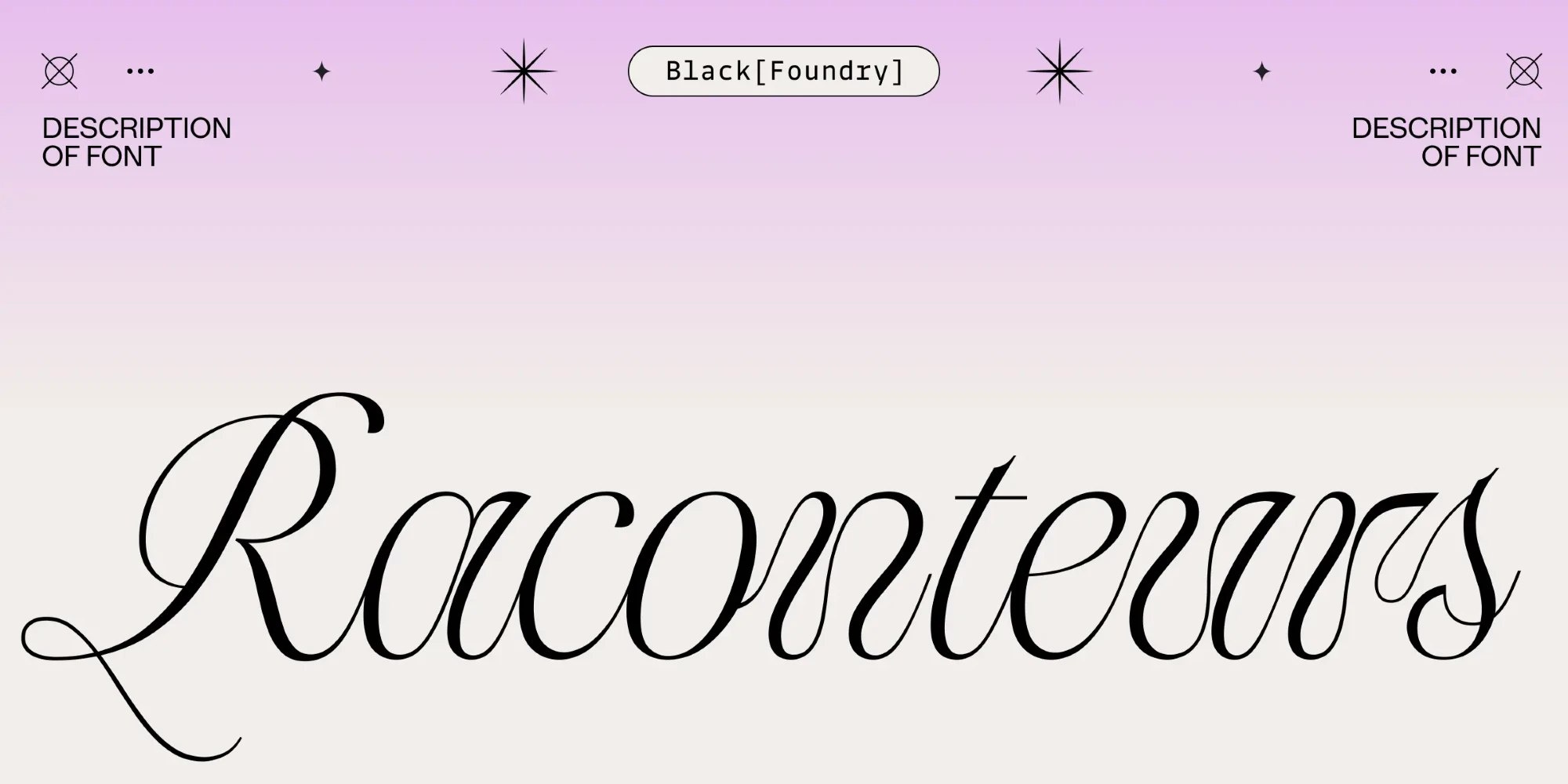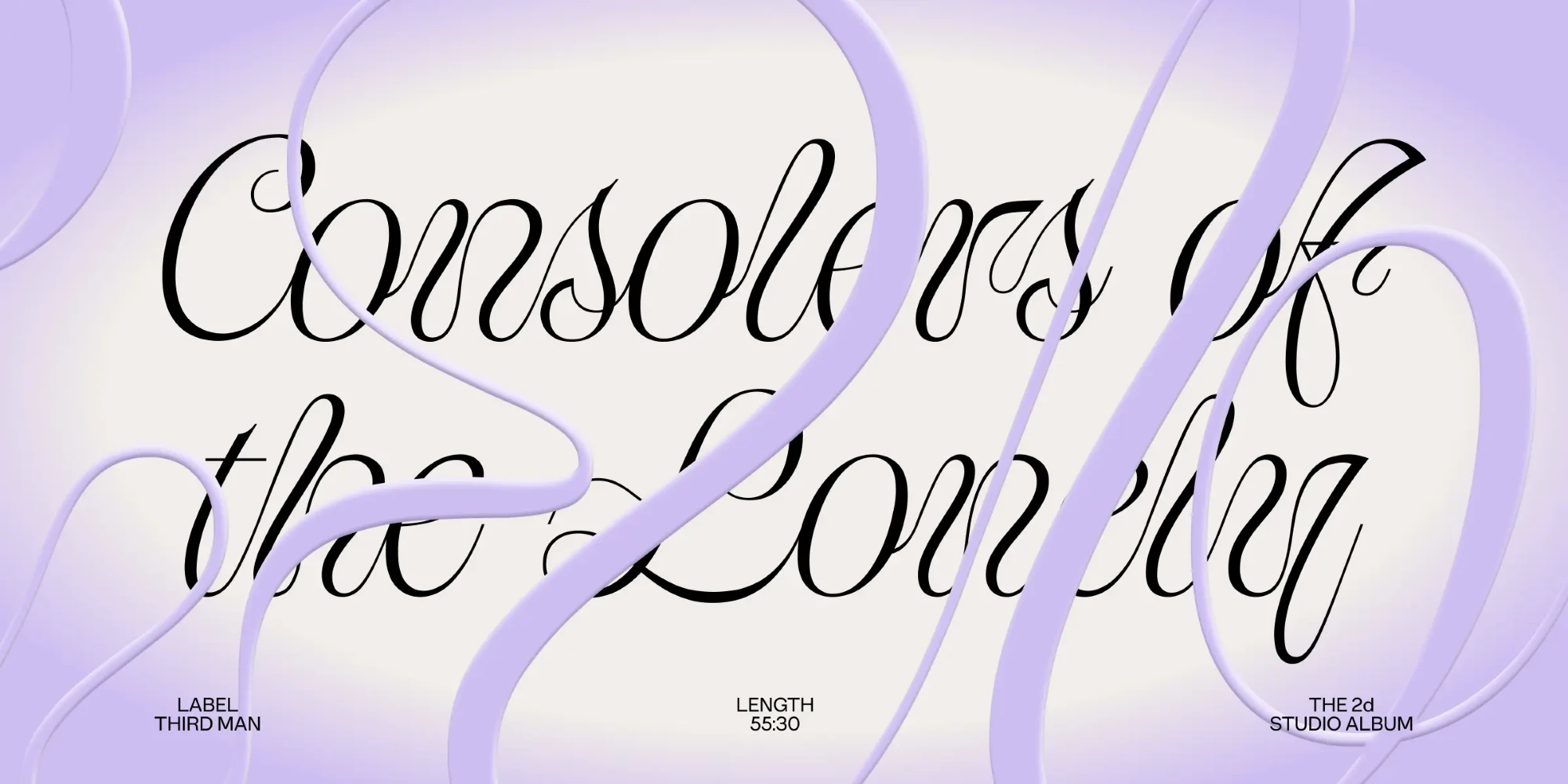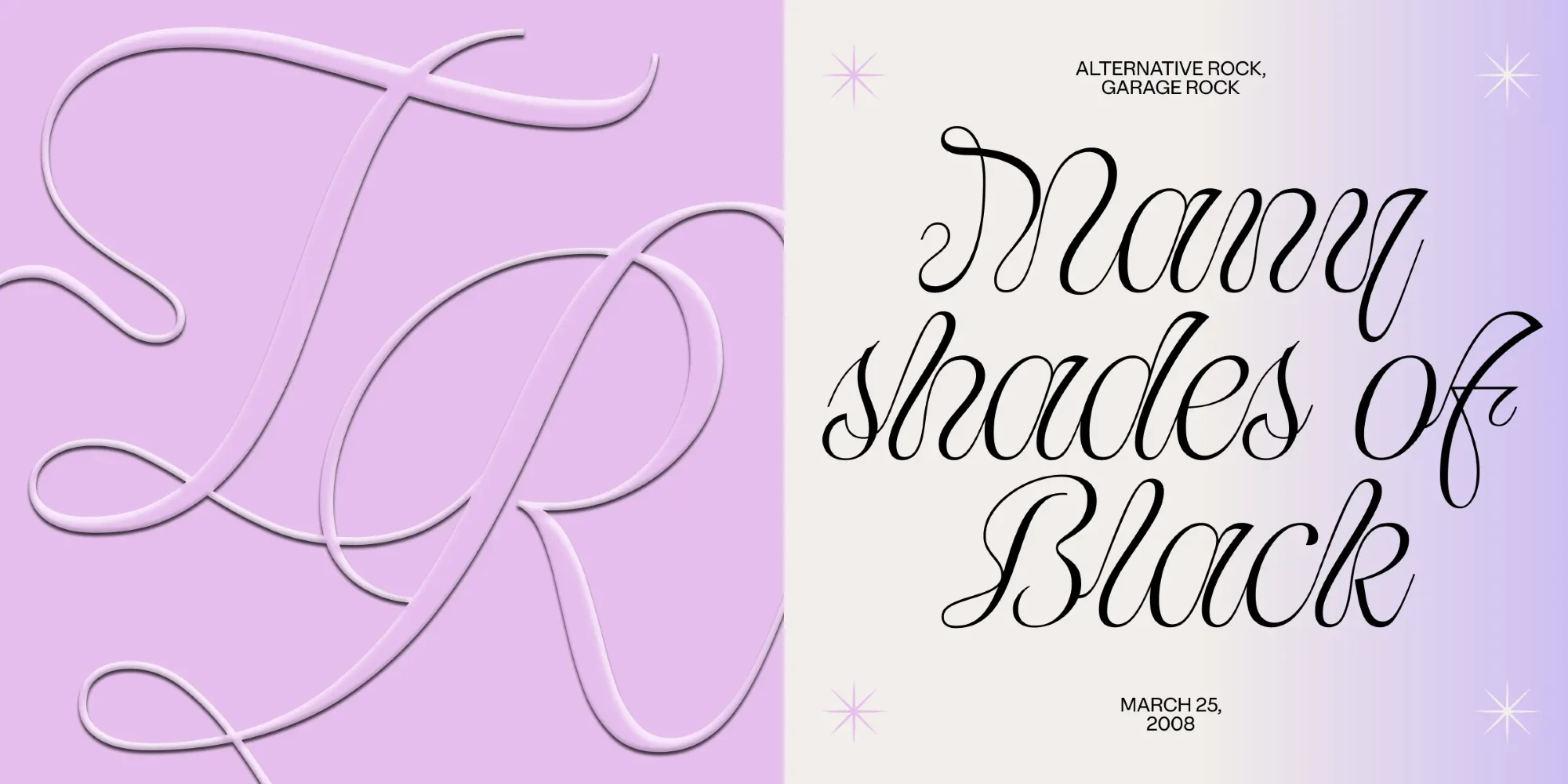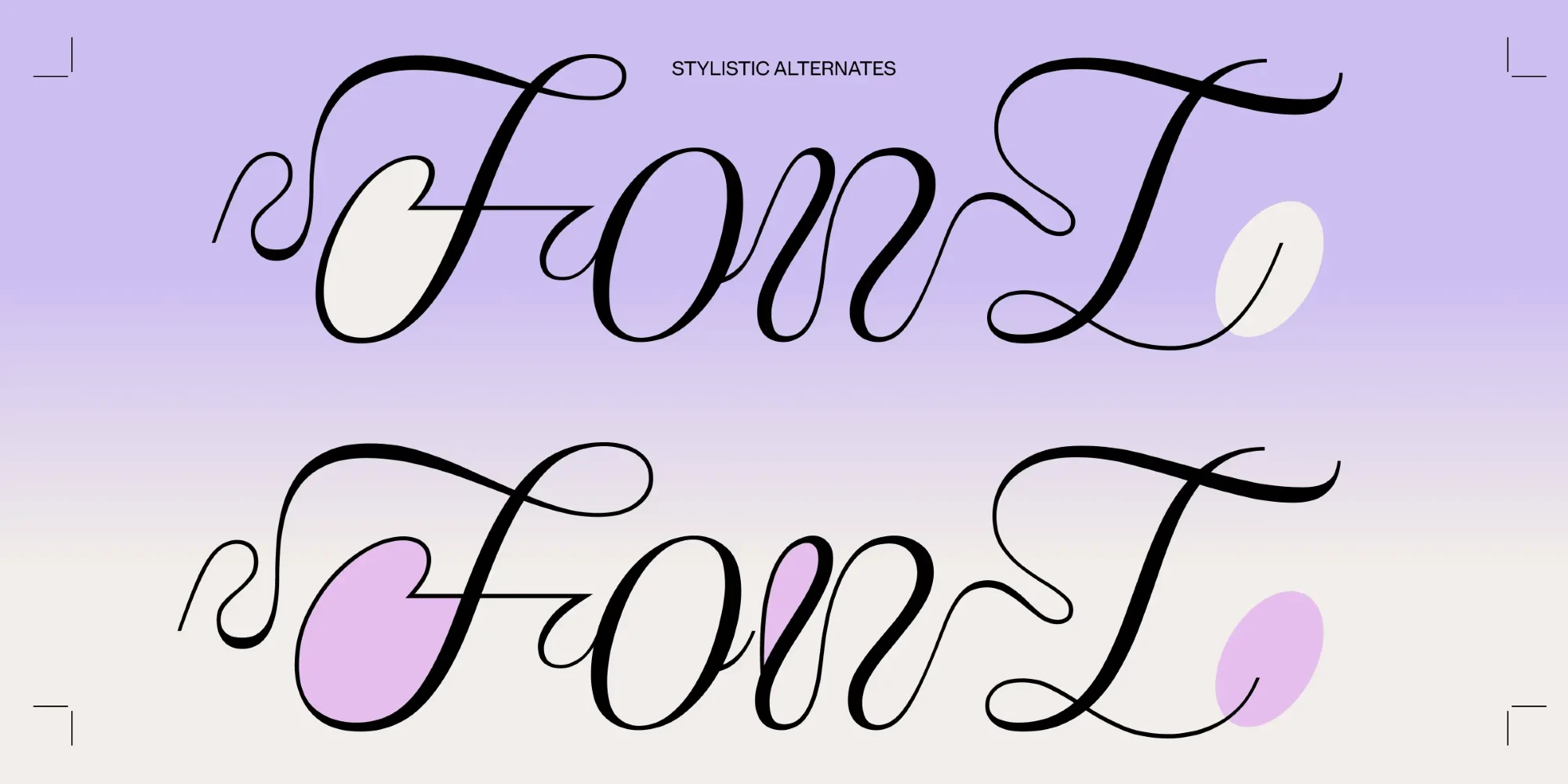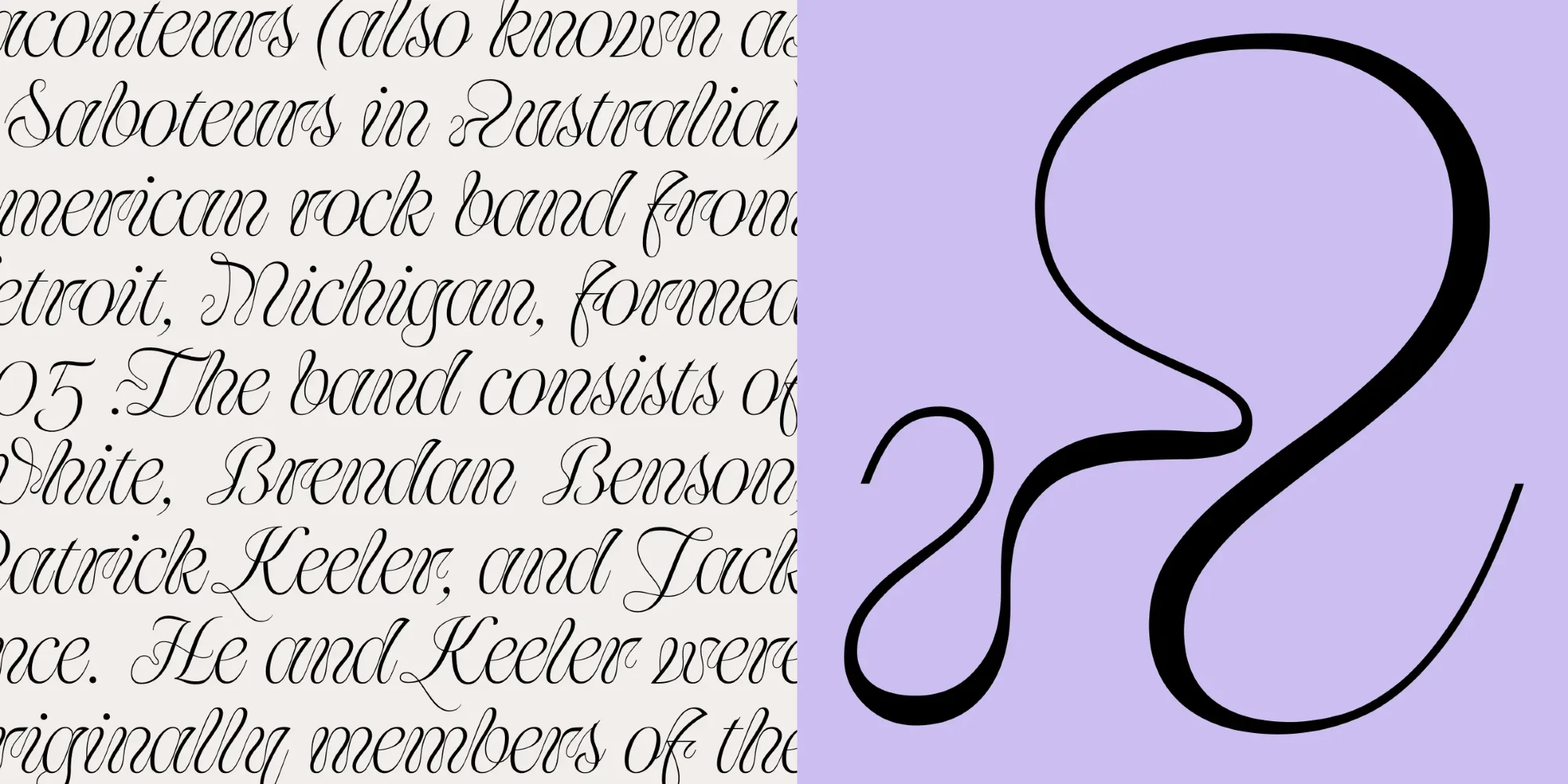
Raconteurs Font
Raconteurs is an elegant display script defined by unconventional contrast and interplay between full-bodied strokes and delicate connections, creating textures reminiscent of lace and spaghetti. Its distinction lies in the one-stroke execution of letterforms, producing a seamless flow where each letter links to the next. Available in a single style, it will also soon have a flourish set and a monolinear version. Ideal for packaging, magazines, book covers, posters, and branding.
![Raconteurs font by Black[Foundry] — the word “Raconteurs” in a high-contrast connected script, with the words “DESCRIPTION OF FONT” in upright sans-serif on either side of the top, and “Black [Foundry]” in a rounded rectangle at the top center](https://typographer.io/1/assets/blk:raconteurs/banner-1.webp:size(2000,1000)?811e)
![Raconteurs font by Black[Foundry] — the words “Consolers of the Lonely” in a flowing, high-contrast script, with “LABEL THIRD MAN,” “LENGTH 55:30,” and “THE 2d STUDIO ALBUM” in a sans-serif, all overlaid with swirling purple ribbons.](https://typographer.io/1/assets/blk:raconteurs/banner-2.webp:size(2000,1000)?b344)
![Raconteurs font by Black[Foundry] — the letters F and R in a light purple, connected script, and the words “Many shades of Black” in a black connected script, with the words “ALTERNATIVE ROCK, GARAGE ROCK” and “MARCH 25, 2008” in a small sans-serif, and four sparkle icons.](https://typographer.io/1/assets/blk:raconteurs/banner-3.webp:size(2000,1000)?8989)
![Raconteurs font by Black[Foundry] — the word “FONT” in a flowing, high-contrast script, repeated twice with different stylistic alternates and small text “STYLISTIC ALTERNATES” above the first instance](https://typographer.io/1/assets/blk:raconteurs/banner-4.webp:size(2000,1000)?8a13)
![Raconteurs font by Black[Foundry] — a large, abstract, black, calligraphic swash on a lavender background, next to a column of text set in a delicate, high-contrast script.](https://typographer.io/1/assets/blk:raconteurs/banner-5.webp:size(2000,1000)?a88e)